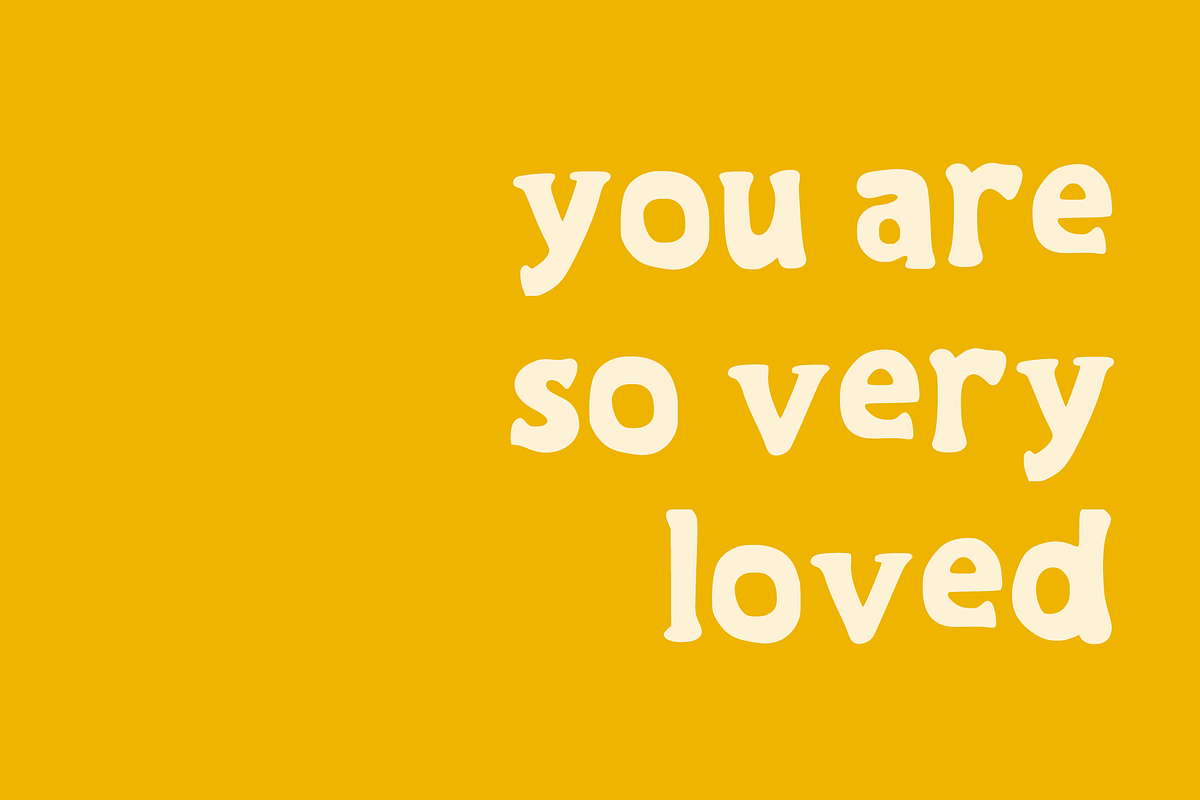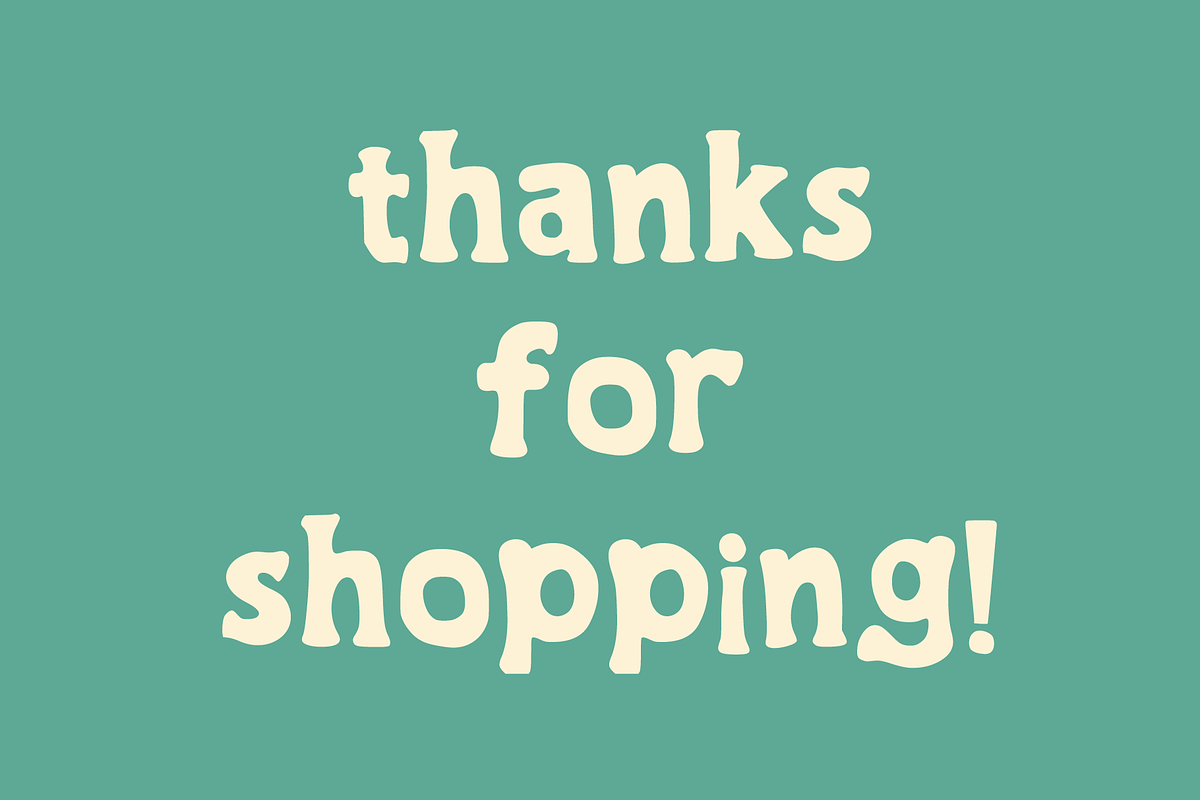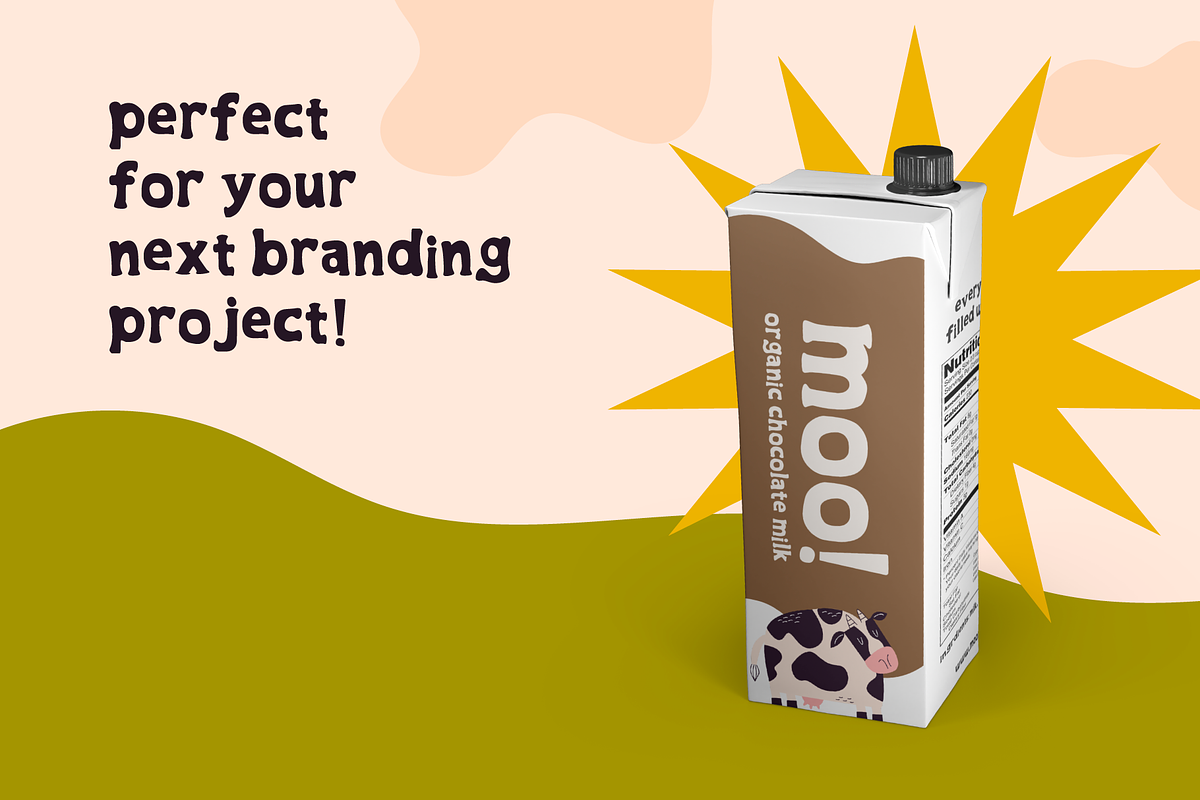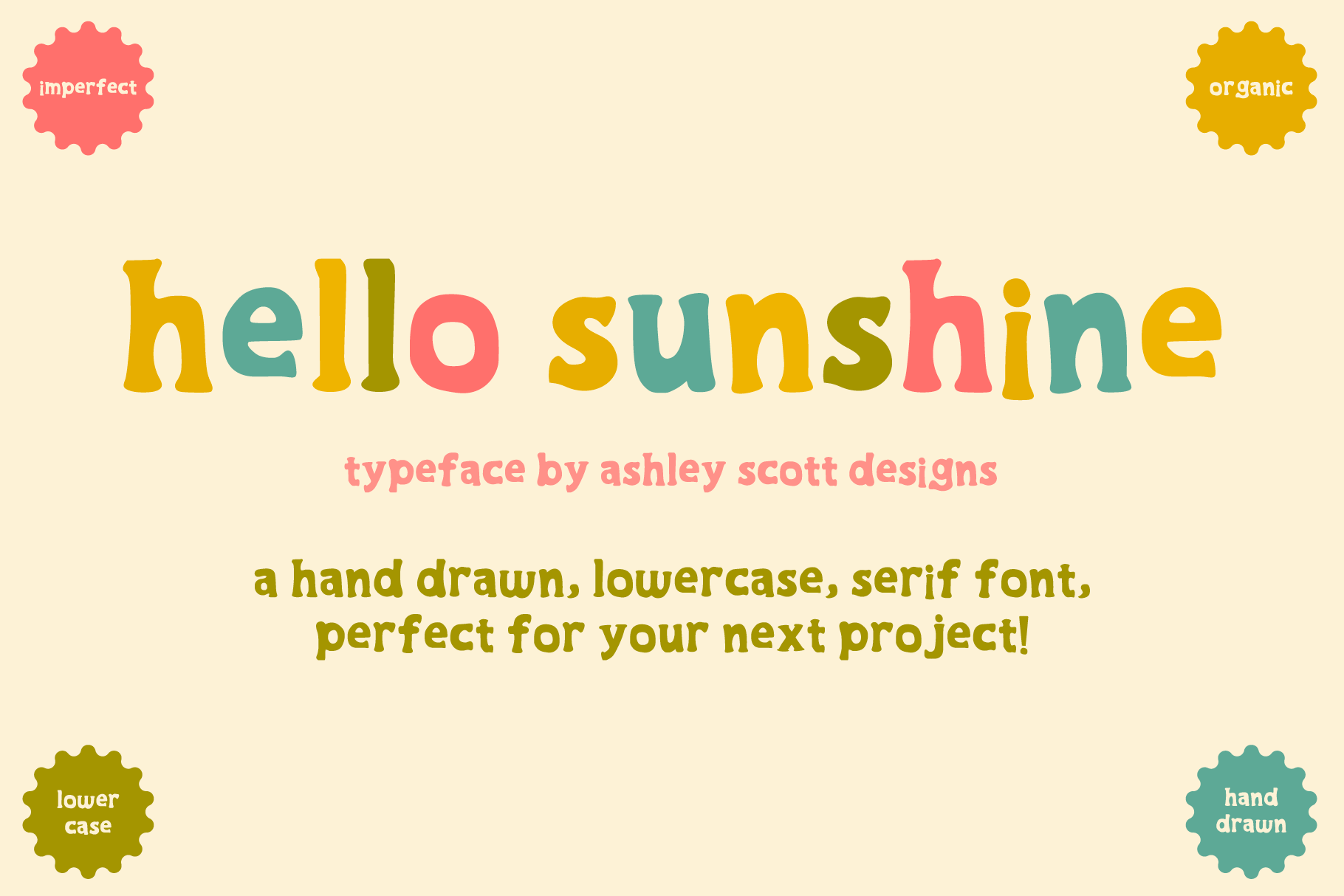
hello sunshine | hand drawn font
Hello Sunshine Typeface by Ashley Scott Designs is a hand drawn, imperfect, lowercase, organic font perfect for your next creative project!